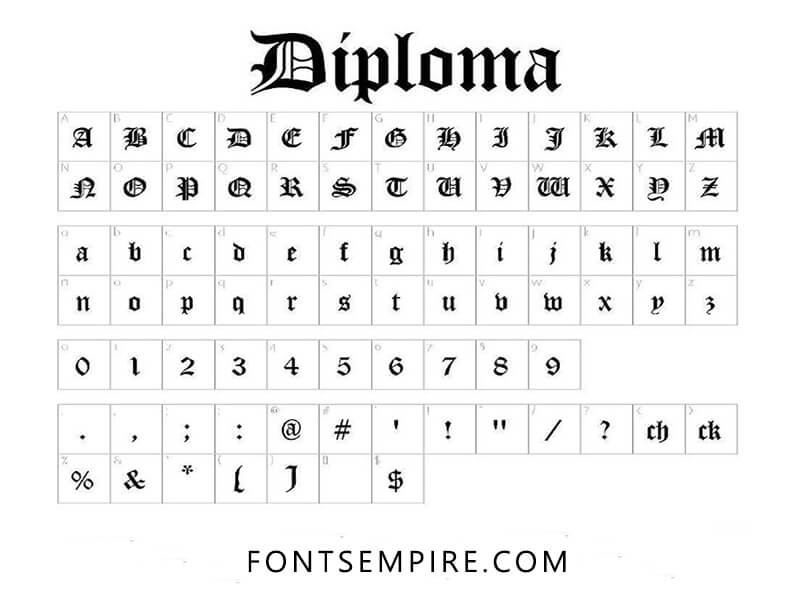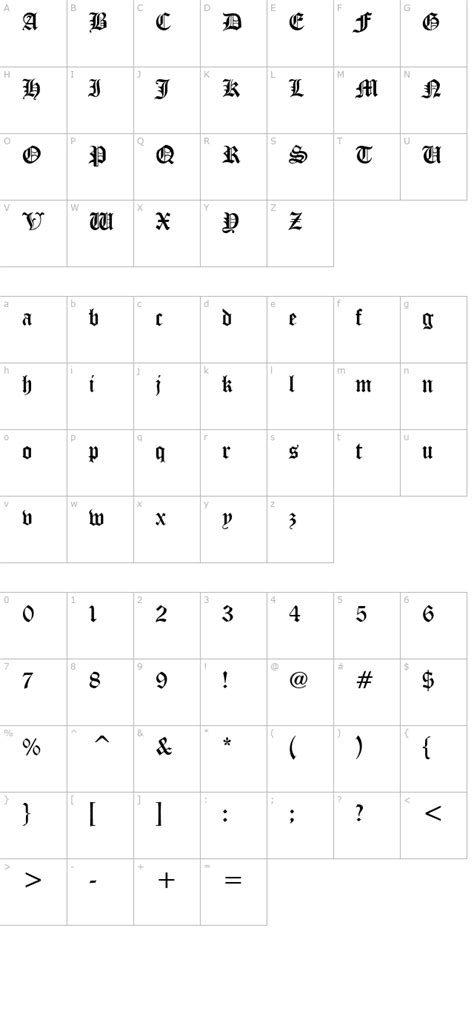
Diploma free font
Download diploma fonts for free in the highest quality available. Weightmedium (normal) widthmedium (normal) mac stylebold. Web free certificate fonts for a professional look: Fontget has the largest selection of. Elevate any design project with beautiful, elegant fonts perfect for awards, diplomas,.
Diploma Font Fontzaa Fonts Free Download
Download diploma fonts for free in the highest quality available. Elevate any design project with beautiful, elegant fonts perfect for awards, diplomas,. Fontget has the largest selection of. Web free certificate fonts for a professional look: Weightmedium (normal) widthmedium (normal) mac stylebold.
Weightmedium (Normal) Widthmedium (Normal) Mac Stylebold.